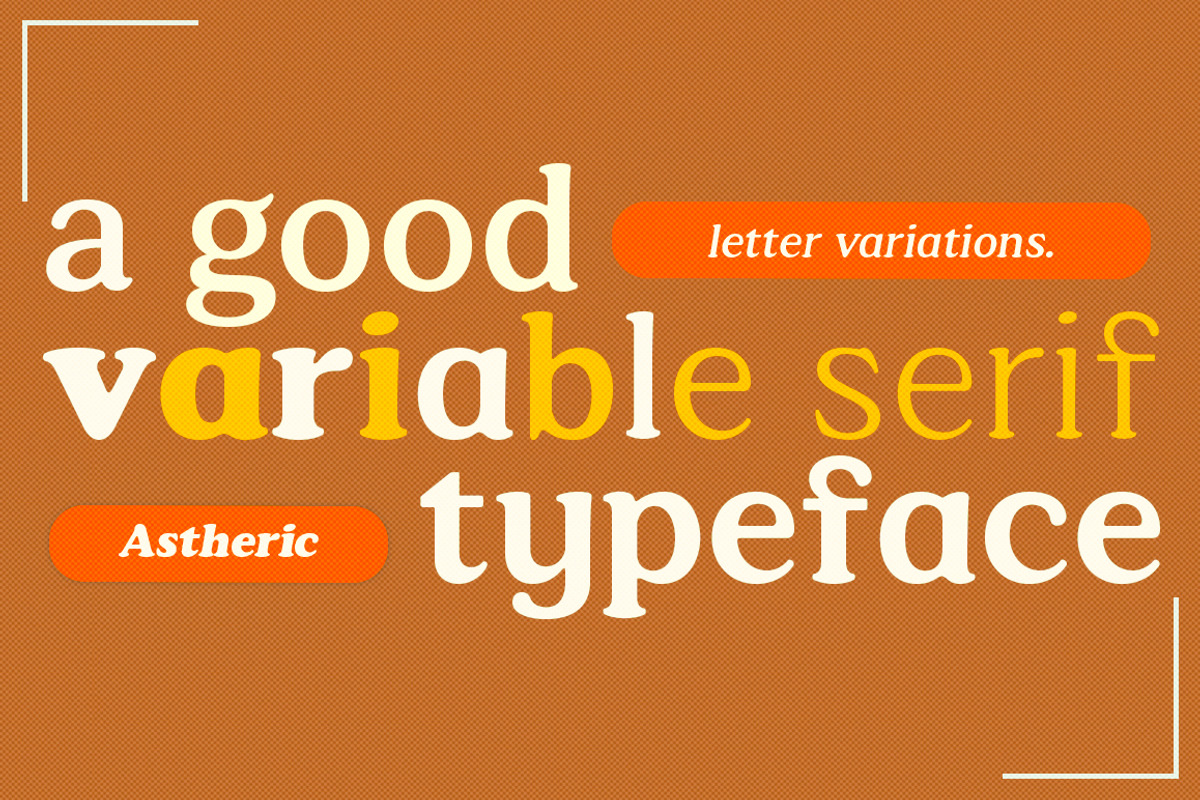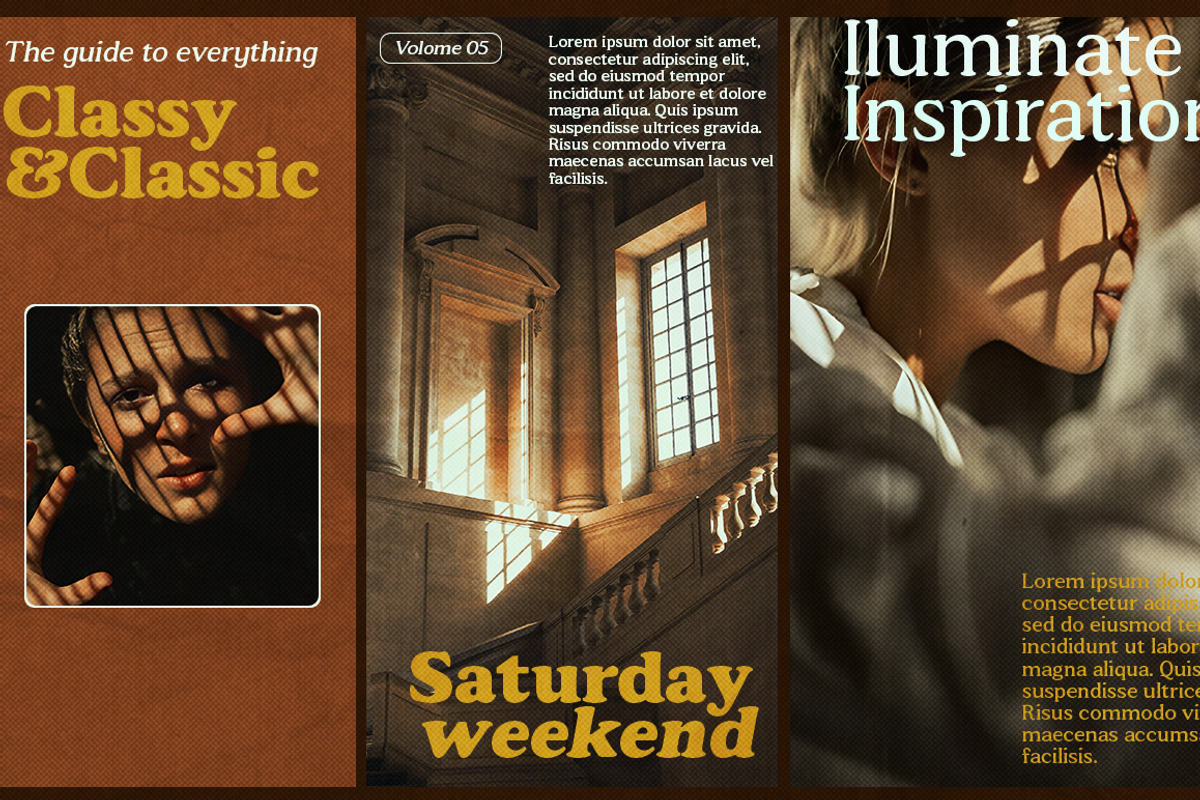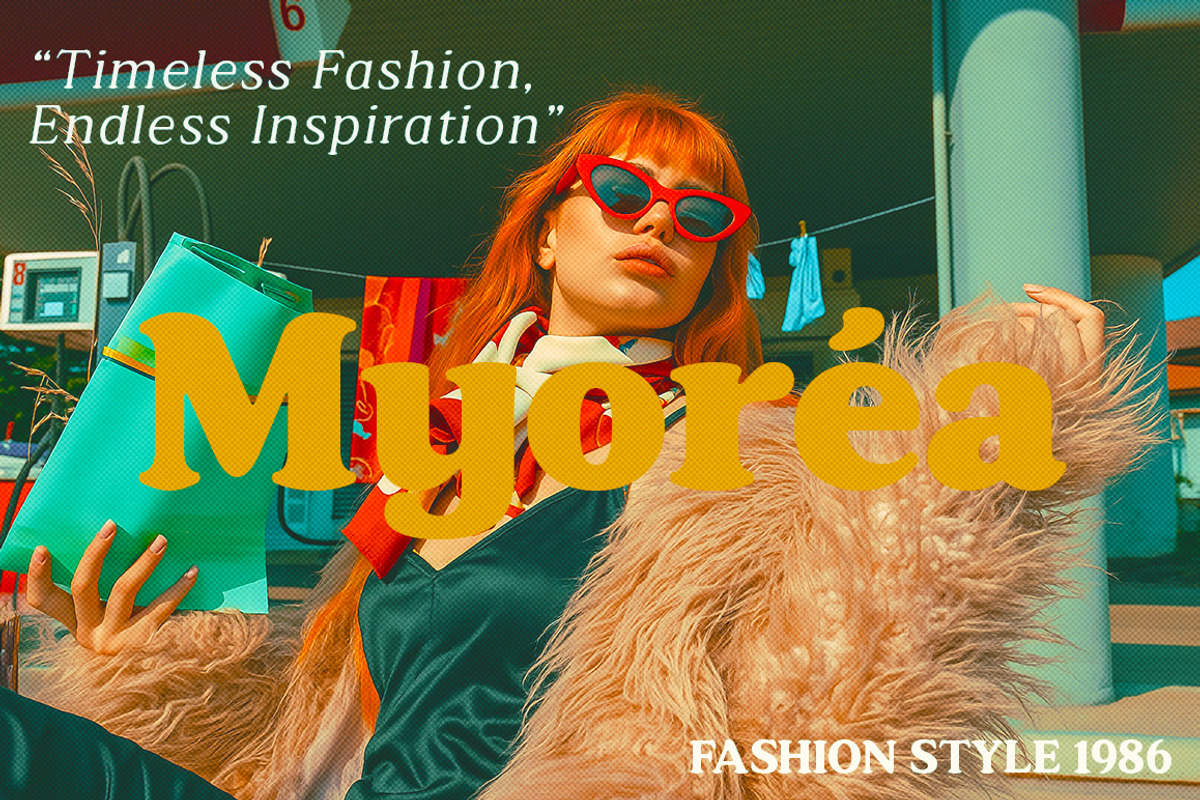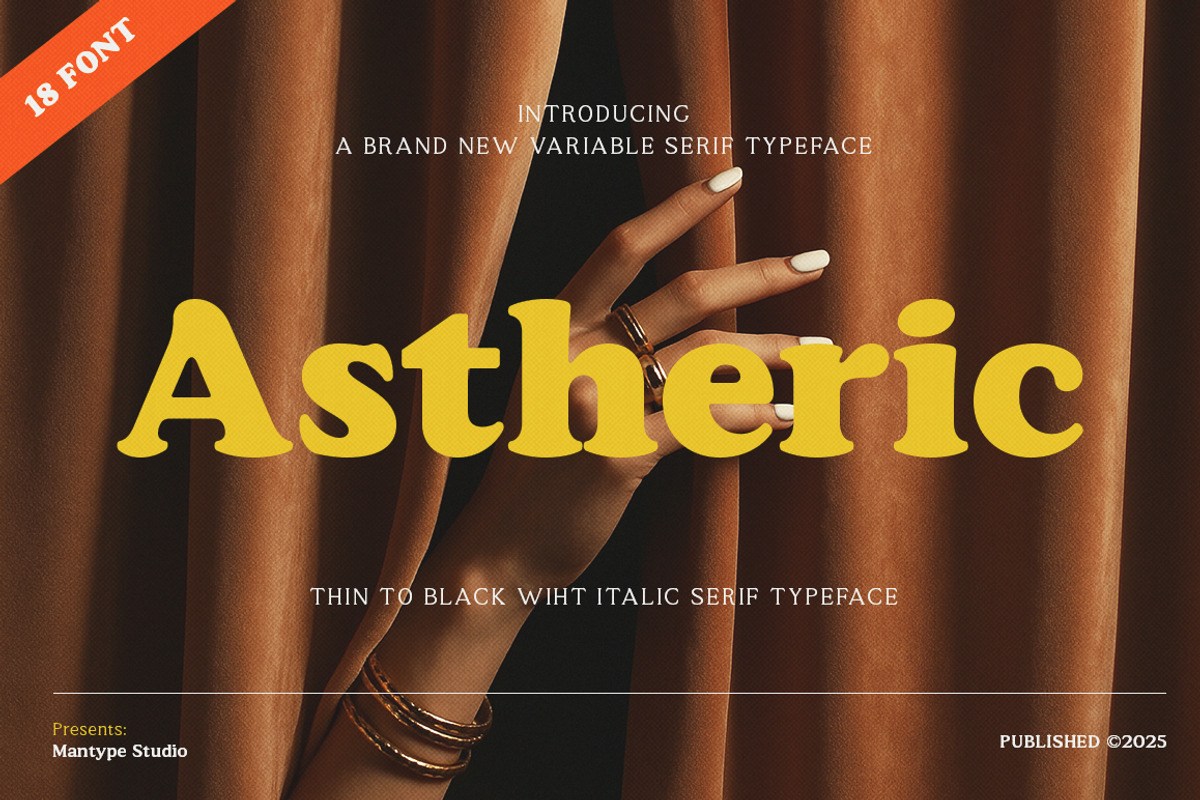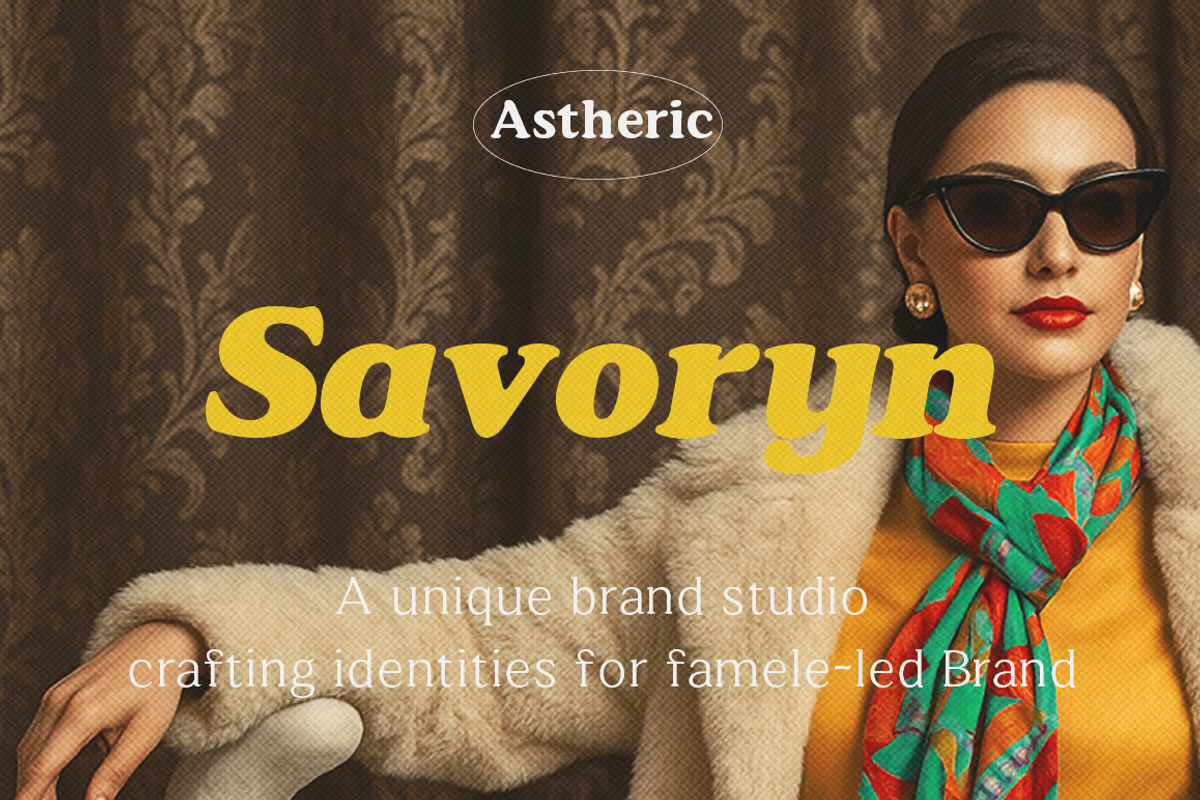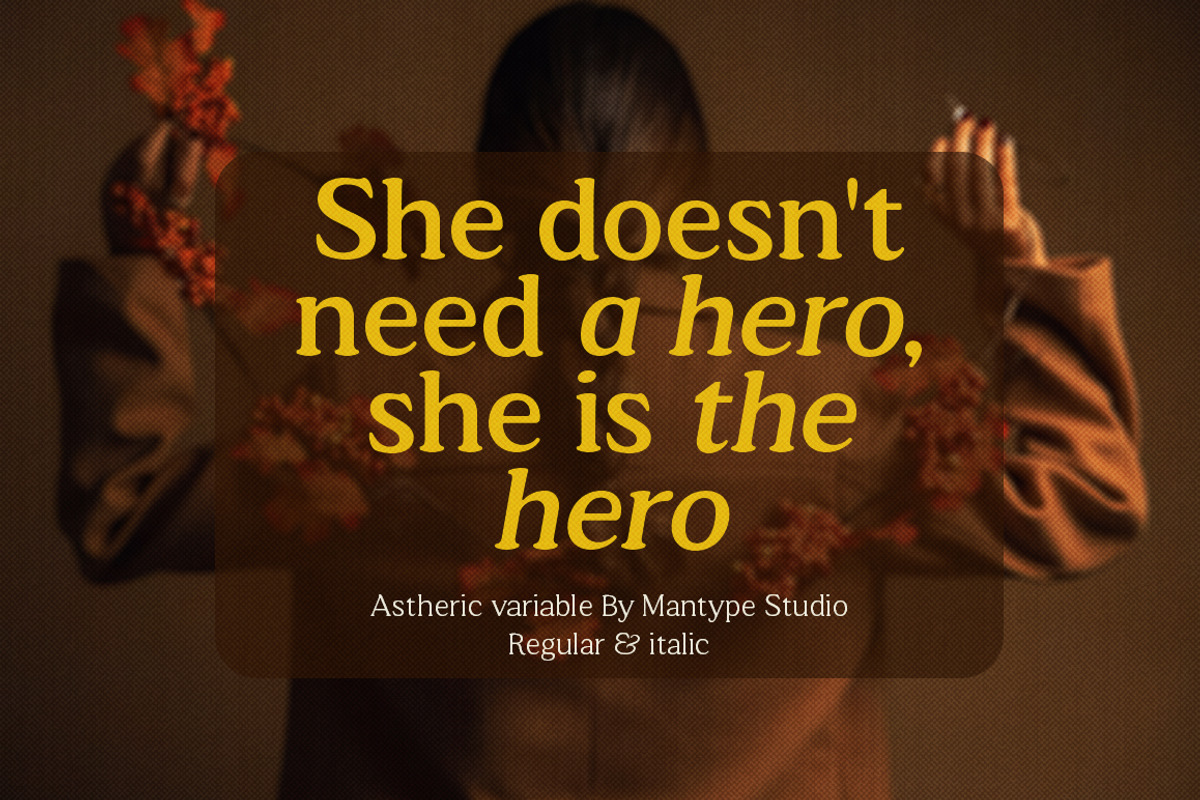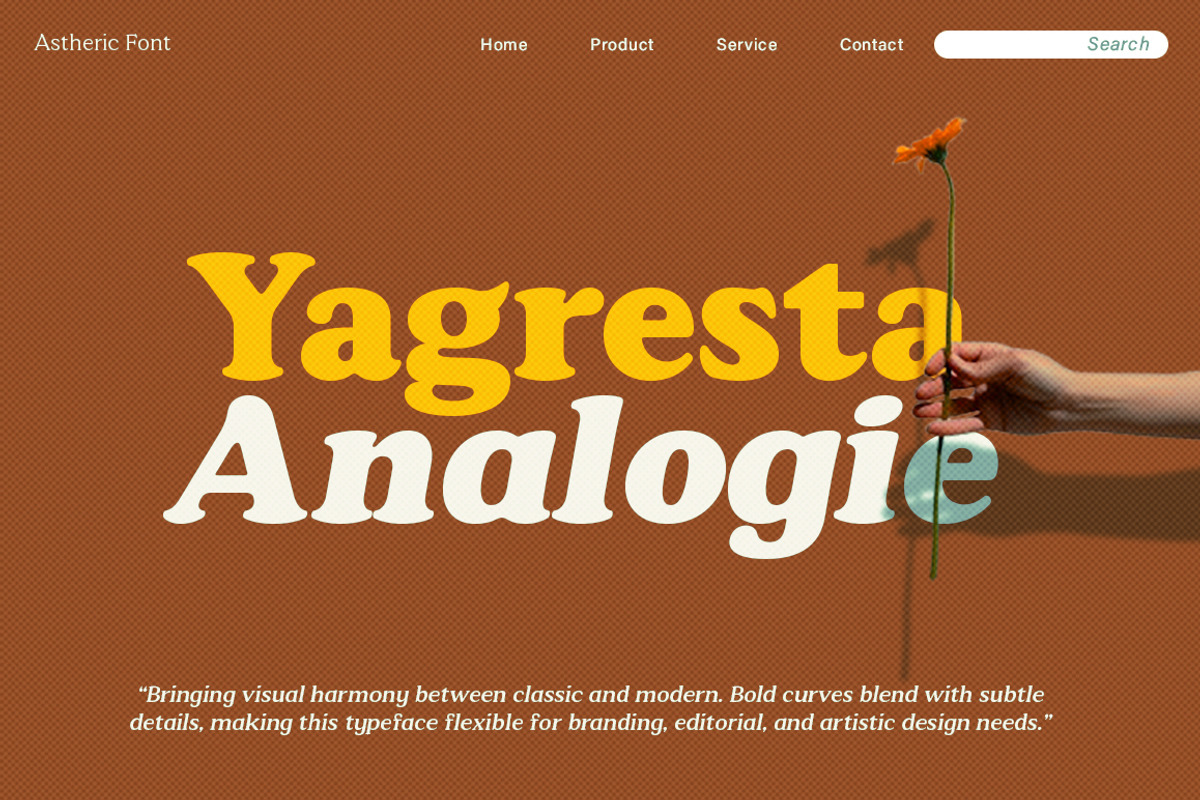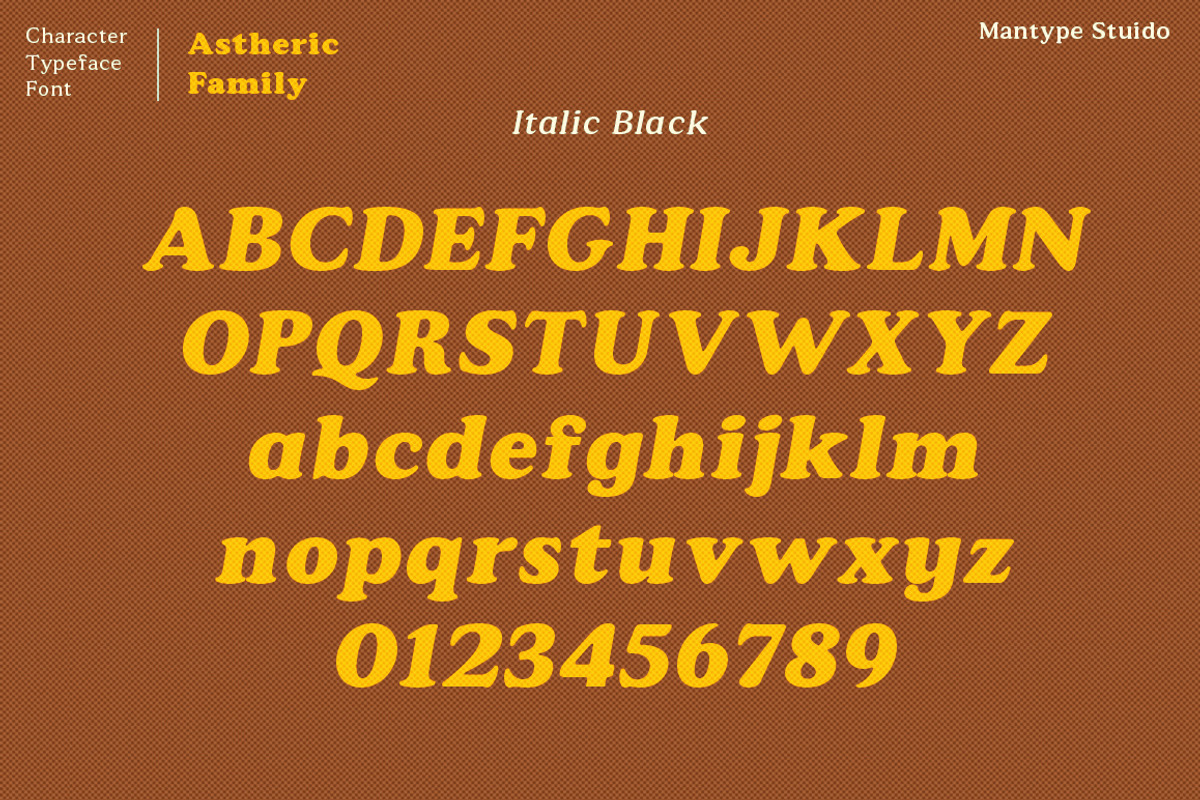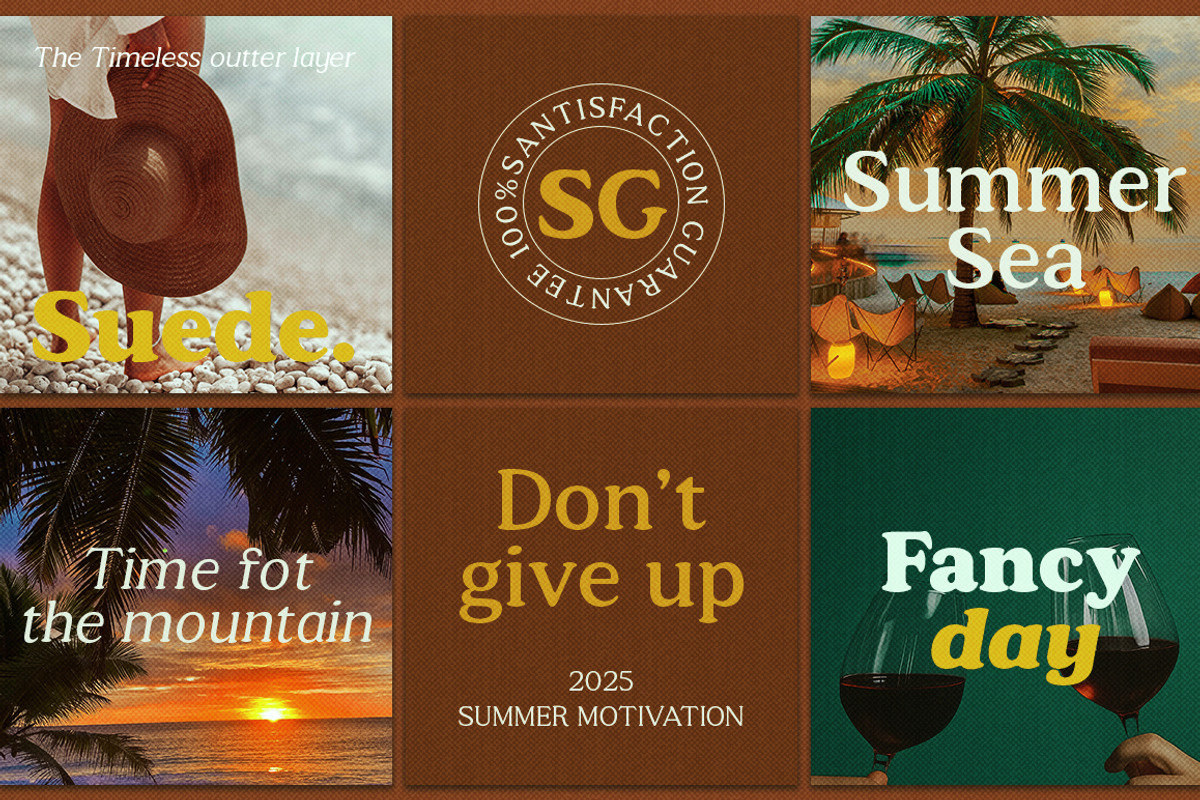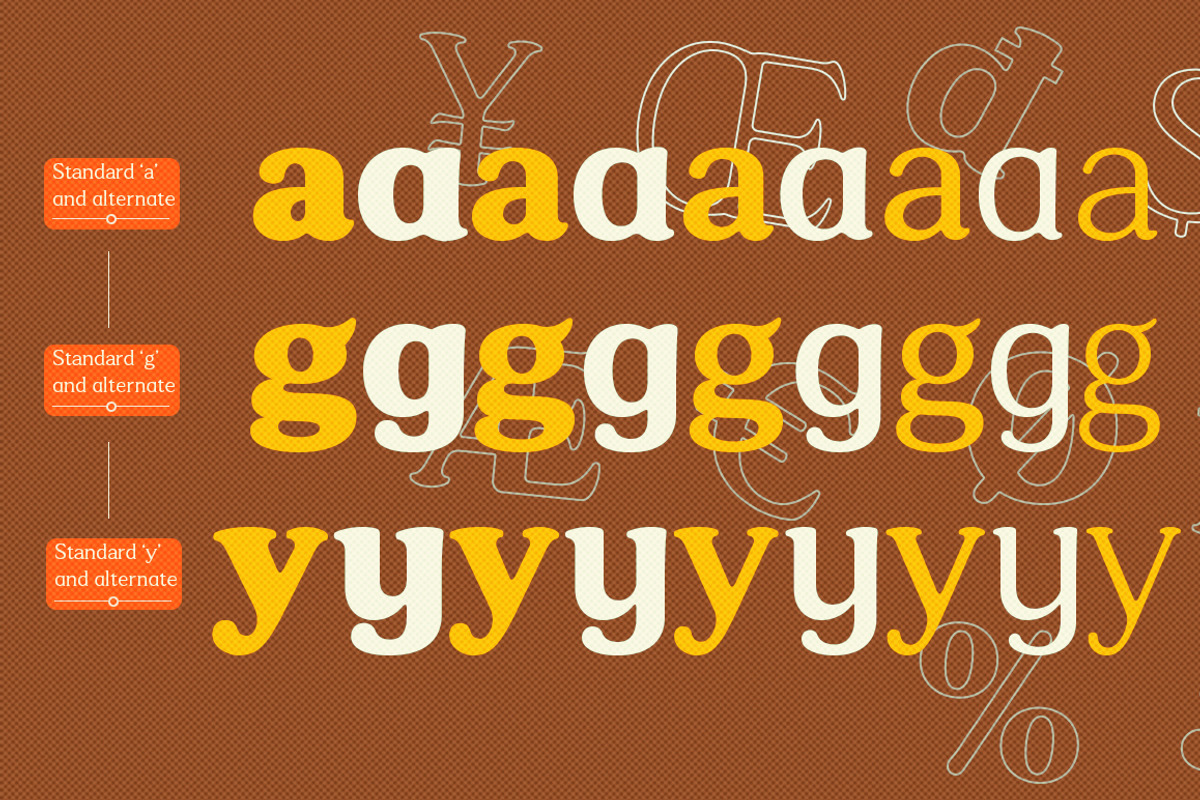
Astheric
Astheric is a modern variable serif typeface that perfectly blends classic elegance with contemporary flair. With its smooth curves and bold yet refined serifs, Astheric delivers a strong, sophisticated, and highly recognizable character. This typeface comes in 18 styles — from Thin to Black, each accompanied by an Italic version. Its versatility allows you to create expressive and consistent typography across a wide range of design projects. Astheric is ideal for branding, logos, editorials, packaging, posters, and headlines that seek a sense of timeless luxury. Its graceful yet confident letterforms radiate elegance, strength, and a bold modern aesthetic.